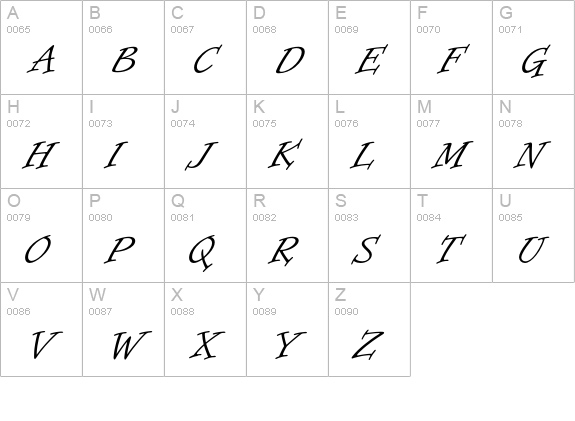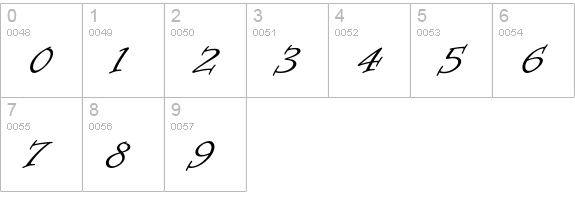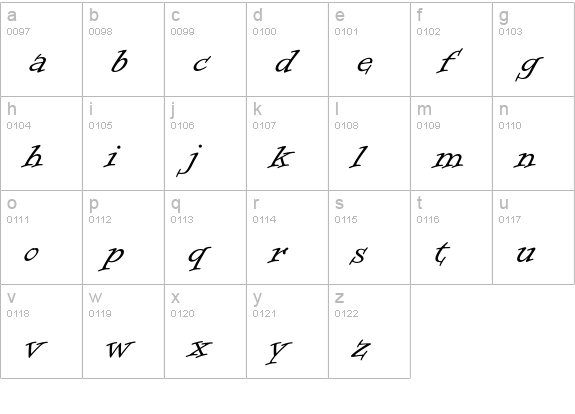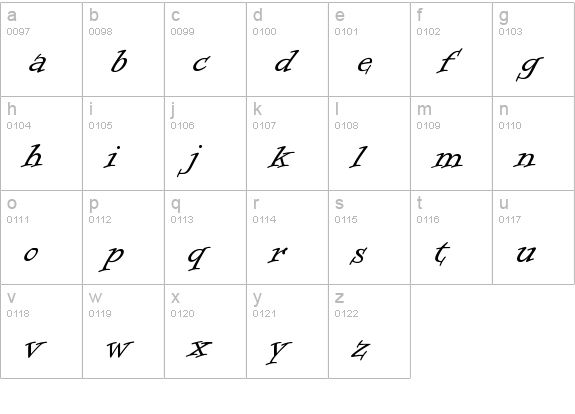
Intermezzo Font Details
Intermezzo is a stunning and versatile font that effortlessly combines classic elegance with modern simplicity. Its clean lines and balanced proportions make it perfect for a wide range of design projects, from branding and advertising to web design and print materials. With its timeless appeal, Intermezzo captures attention and delivers a sense of sophistication. But the best part about Intermezzo? It's free! That's right, this incredible font is freely available to download at FontsMarket.com. Whether you're a professional designer or a passionate hobbyist, Intermezzo allows you to bring your creative visions to life without breaking the bank. With just a few clicks, you can access this remarkable font and add a touch of refinement to your designs. Intermezzo's versatility is truly unmatched. Its carefully crafted letterforms exude elegance and clarity, making it suitable for both display purposes and body text. Whether you're designing a logo, creating a magazine layout, or crafting an invitation, Intermezzo provides the perfect balance of style and readability. The attention to detail in Intermezzo is evident in every curve and stroke. Its graceful serifs and gentle curves create a sense of harmonious rhythm, while its generous x-height ensures legibility even in smaller sizes. Each character is meticulously designed to maintain its own unique personality while seamlessly blending with its counterparts. Available in a variety of weights and styles, Intermezzo offers endless possibilities for creative expression. Whether you prefer a bold and impactful look or a subtle and understated aesthetic, Intermezzo has the perfect variant to suit your needs. Its comprehensive character set includes uppercase and lowercase letters, numerals, punctuation marks, and a wide range of international language support. So why wait? Discover the beauty and versatility of Intermezzo today. Download this exceptional font for free at FontsMarket.com and unlock a world of design possibilities. With Intermezzo, you can elevate your projects to new heights and make a lasting impression on your audience. Experience the freedom and creativity that Intermezzo brings, and let your designs shine with elegance and sophistication.